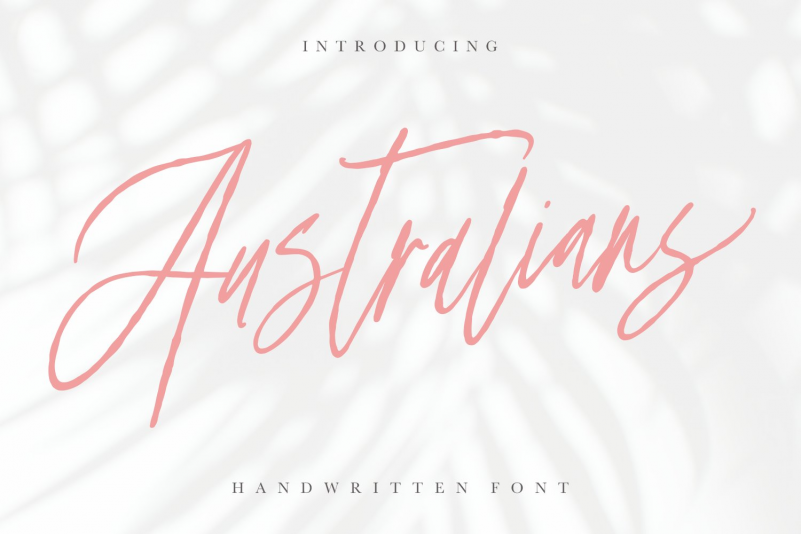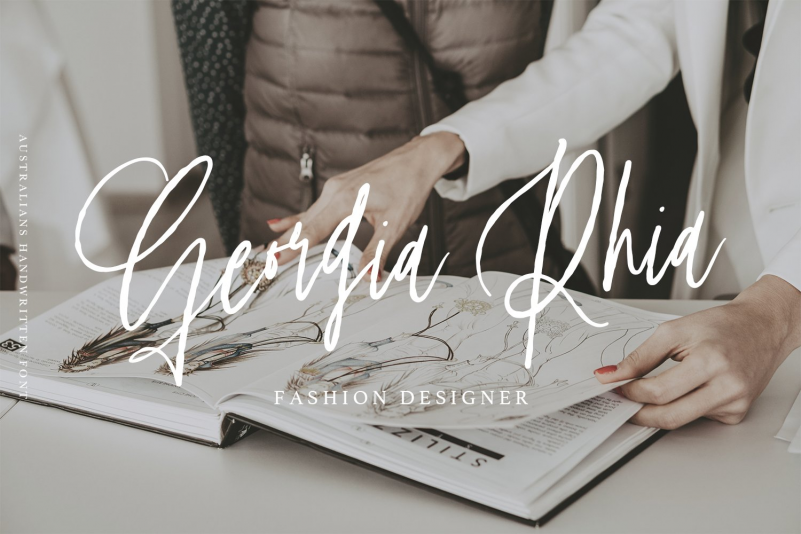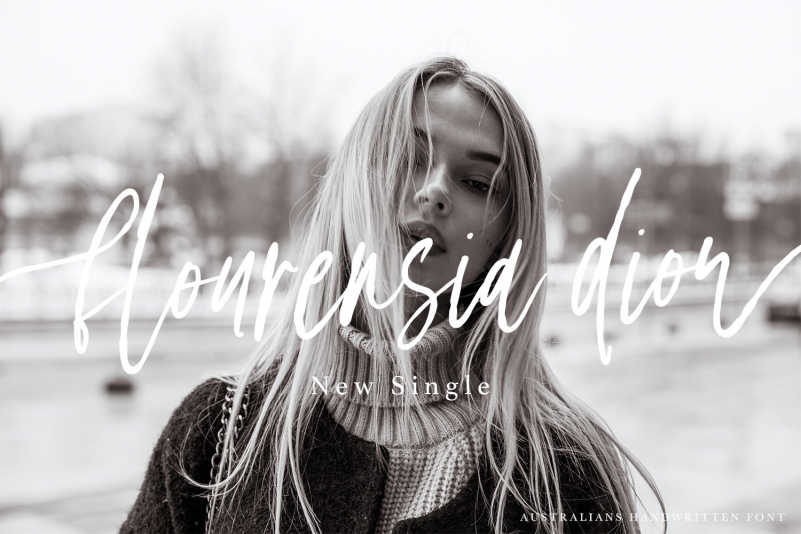
Australians Font
Hello everyone, I want to launch a new font Australians a Handwritten font in a modern and coarse script style. This font is made with a rough brush to produce handwritten textured outside the letters.
Australians has a total of 2 alternative swash letters and 1 lowercase alternative that you can change as you wish. This font is also available with the slant version, and I added 75+ ligatures that automatically change when you write something.
Australians can be used for various projects such as stationery invitations, social media, logos, weddings, branding, graphic design to support the project you want to work on.